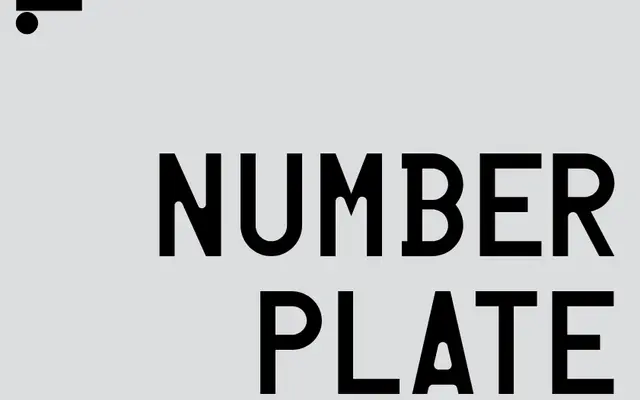
LL Numberplate
Lineto · Stephan Müller, Lukas Schneider · 1998
A family of caps-only headline typefaces digitised from the official car registration plate lettering of nine European nations, each offered in sharp and rounded cuts.
Each national variant captures the letterforms as determined by the stamp tooling used to emboss physical plates, with a sharp cut reflecting the die and a rounded cut reproducing the embossed result. Roots stretch back to Cornel Windlin's 1991 digitisation of British licence plate lettering, with contributions from Stephan Müller covering Belgium, France, Italy and Switzerland (1998–2003) and Lukas Schneider adding Austria, Finland and Luxembourg (2010–12). The German pair, FE Mittelschrift and FE Engschrift, originate from a late-1970s design intended to prevent plate forgery, and were digitised by Müller and Hansjakob Fehr in 1995.
Caps-only headline typefaces derived directly from official national car registration plate lettering, shaped by industrial stamp tooling rather than typographic convention. The anonymous engineering origins and official-institutional character place this firmly in vernacular display.